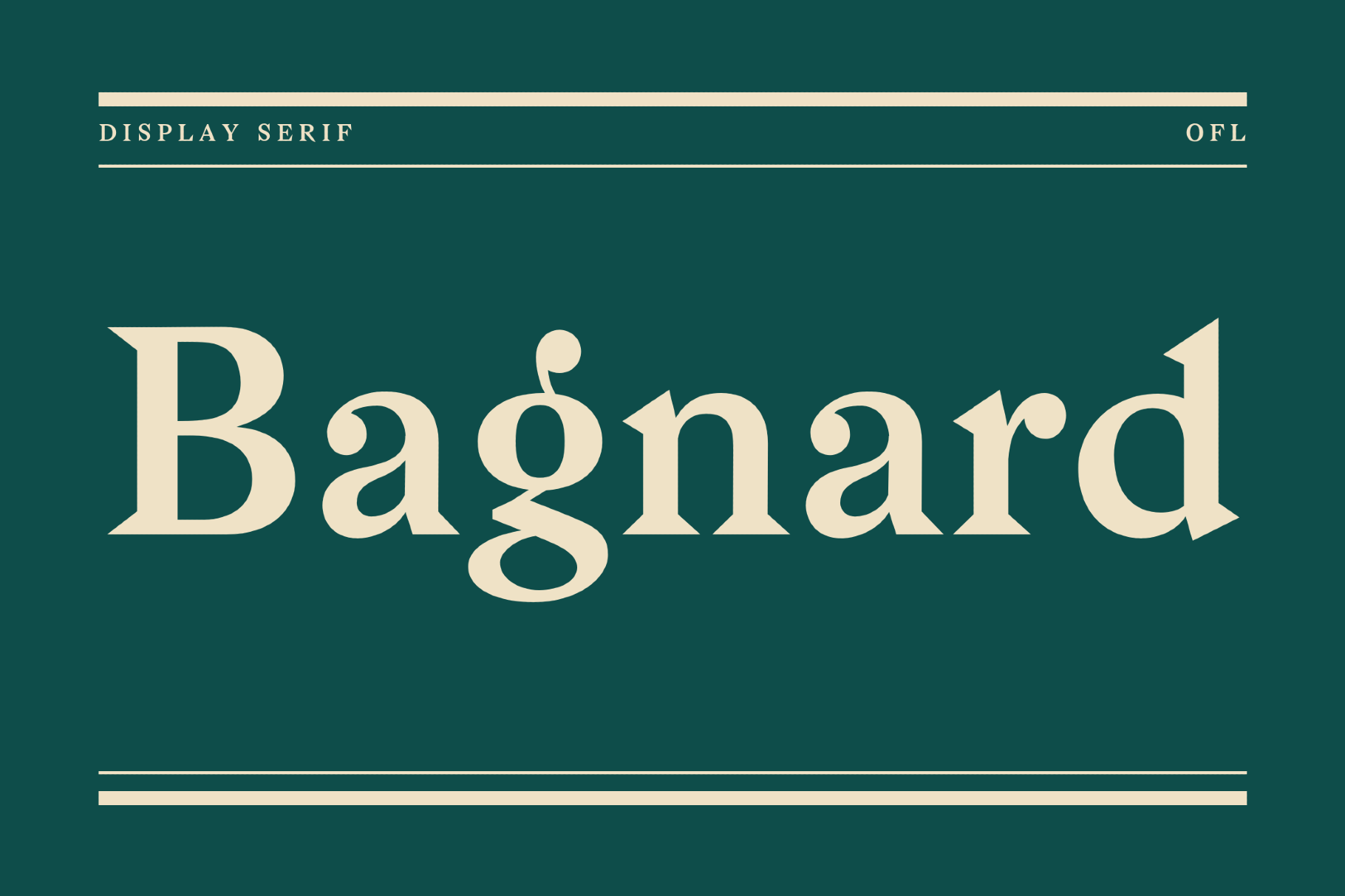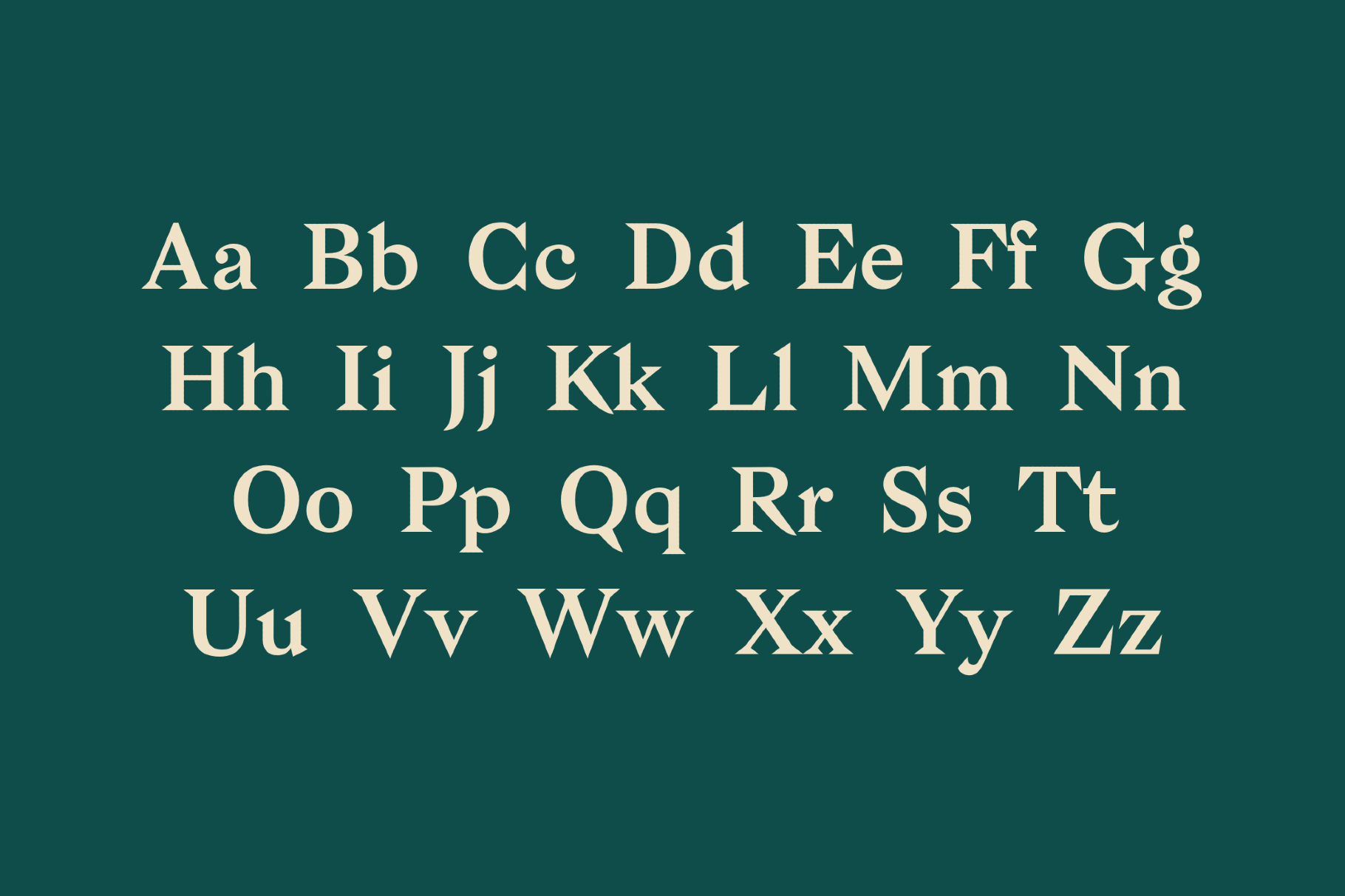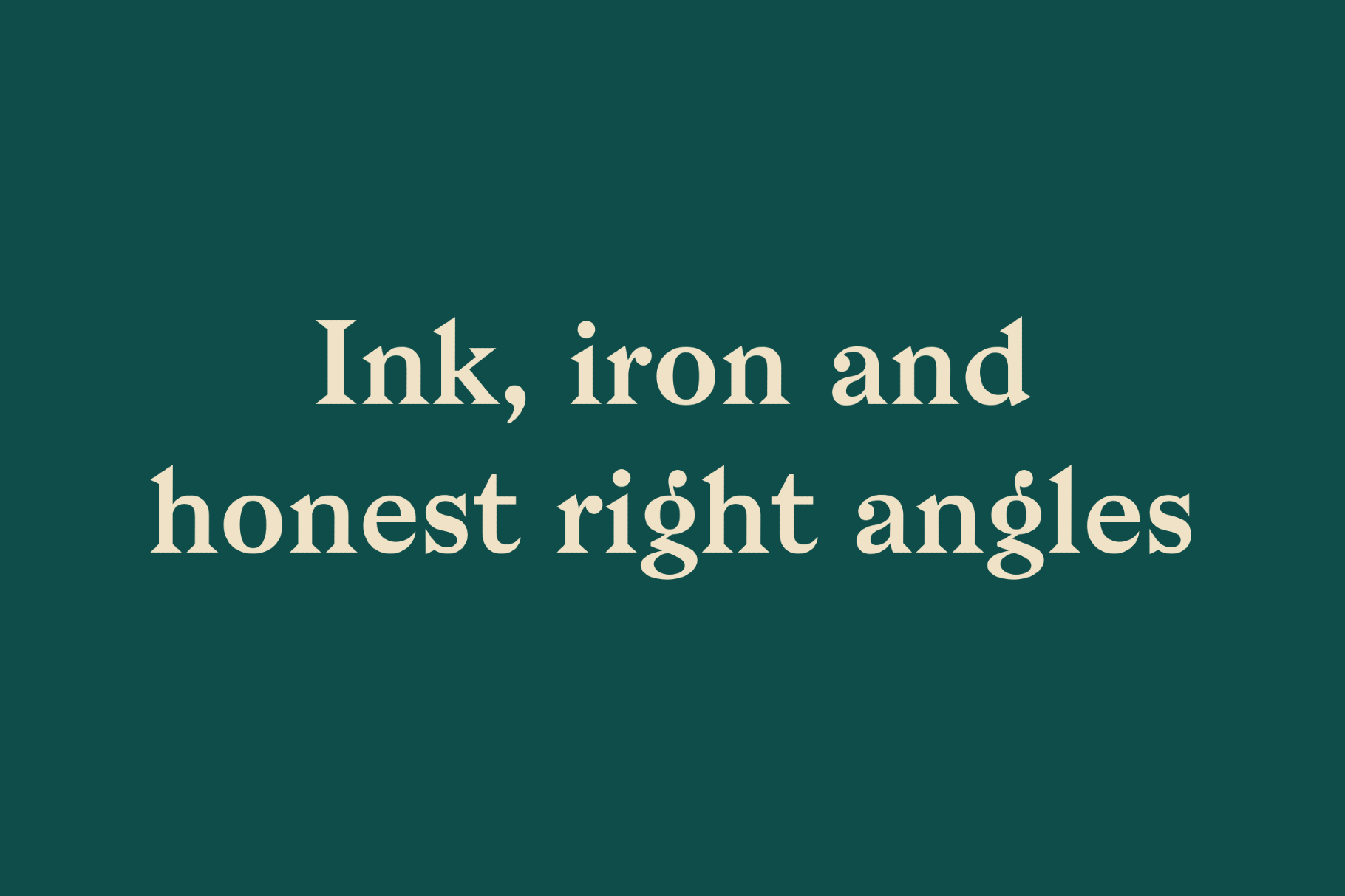
Bagnard - Free Display Serif Font
Bagnard
Bagnard looks more elegant than its backstory suggests. The font is based on scratched graffiti from an anonymous Napoleonic War prisoner, but the sharp serifs came out closer to ornate Victorian playbill lettering.
Suits book covers, museum graphics, documentary titling, boutique branding, wine labels, editorial headlines, wedding stationery, poster headlines, and heritage packaging.